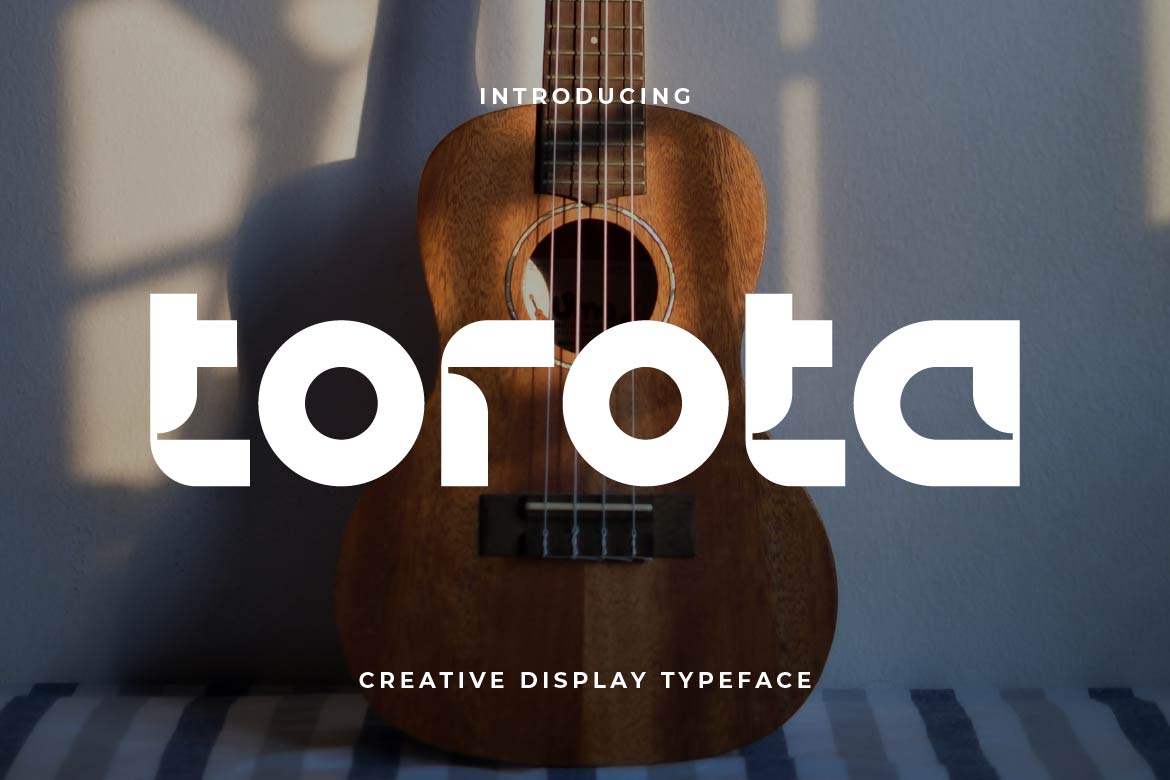
- Torota – Display Logo Font
Torota is a modern display sans serif typeface designed to create strong and eye-catching typography. With clean lines, balanced proportions, and a bold visual presence, Torota is perfect for headlines, posters, branding, logos, packaging, and contemporary design projects.
Its display-focused structure allows your text to stand out clearly in large sizes while maintaining readability and visual harmony. Torota brings a modern, confident, and versatile style that works seamlessly across both print and digital media.
Whether you’re designing for advertising, social media, creative campaigns, or brand identity, Torota delivers clarity, impact, and a professional aesthetic.
Torota is not just a font — it’s built to make your message stand out.